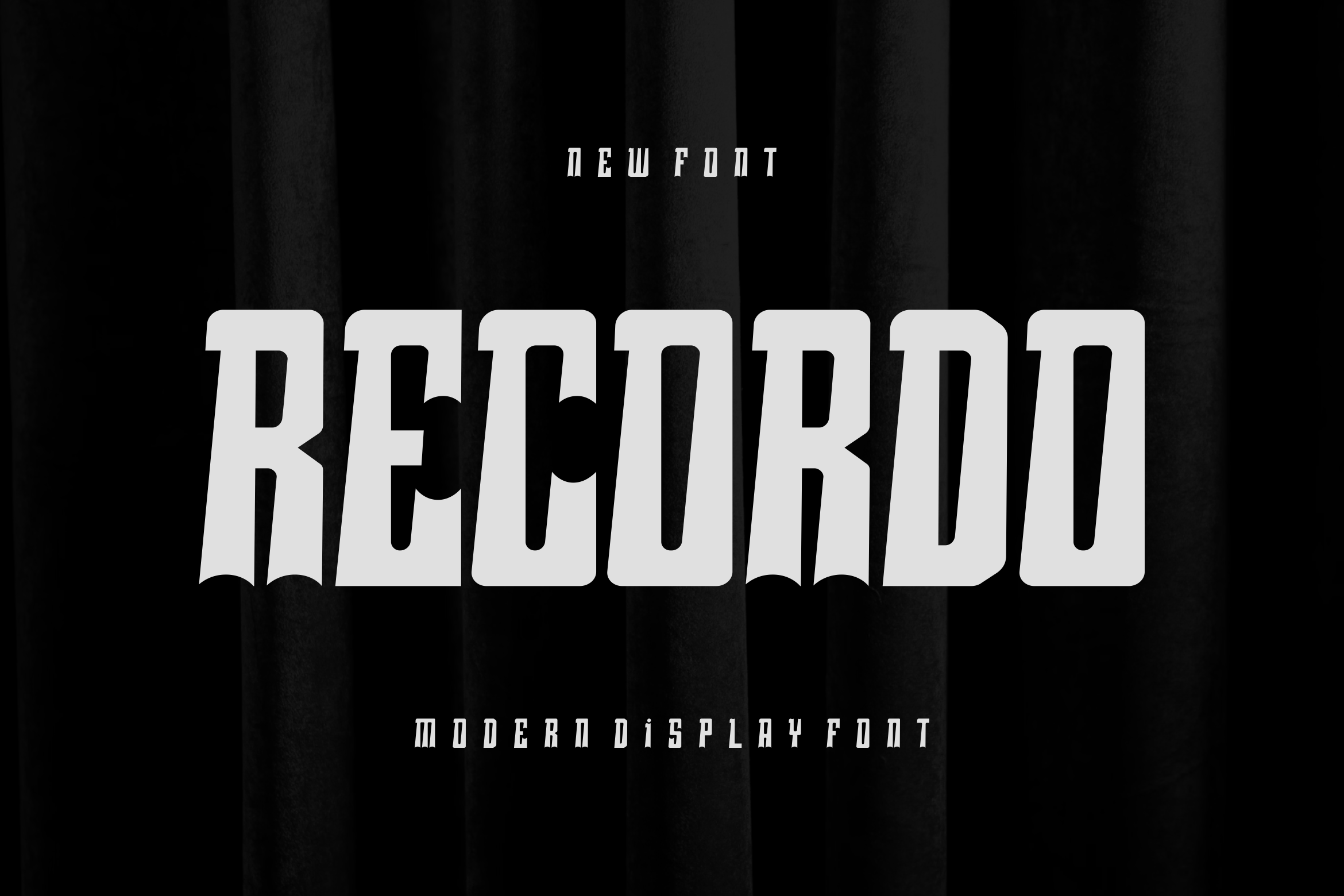
Recordo Font
Introducing our new product Recordo Font - Modern Font
Recordo Font - Modern Font is a bold and authentic display font. The font is suitable for any branding project like logo, esport, and many more. outstanding in a wide range of contexts.